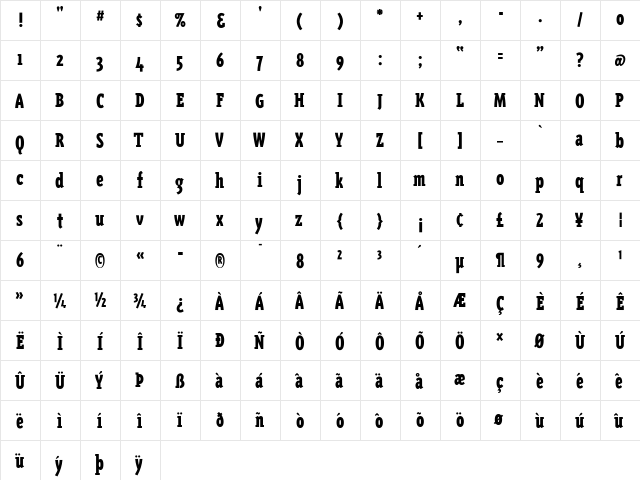
TriplexCondSerifBlack Regular Font Preview
TriplexCondSerifBlack Regular
Design Context for TriplexCondSerifBlack Typeface
TriplexCondSerifBlack carries the refined structure of traditional serif typography, with bracketed terminals and considered proportions that communicate credibility and craft. Its narrow stance lets it pack a punch even in space-constrained designs.